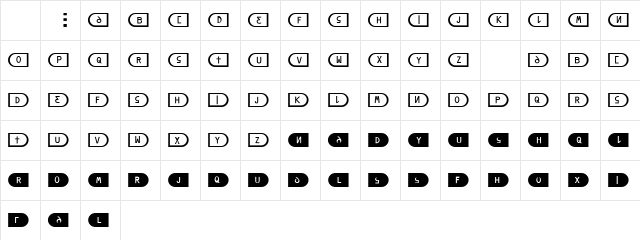
Dna Regular
Design Context for Dna Typeface
Dna is a composed and adaptable typeface that performs quietly and consistently across a wide range of design contexts.